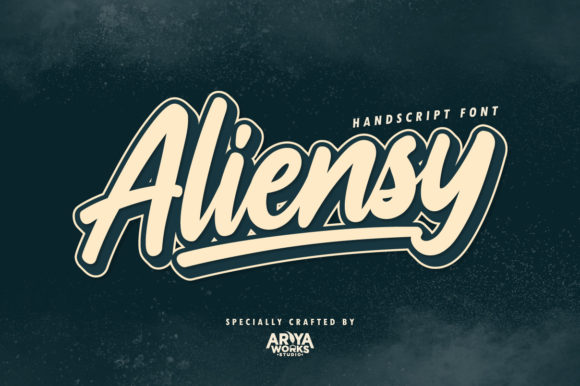
The Ultimate Guide to Aliensy Font: Elevate Your Designs with a Retro Twist
Aliensy Font: A Personal Review
- ✨ Retro charm: Aliensy Font has a unique, nostalgic vibe that’s perfect for adding a touch of vintage flair to your designs.
- ✅ Bold and confident: This font reads as strong and dynamic, making it ideal for headlines and logotype projects.
- 💥 Highly versatile: Aliensy Font can be used for a wide range of design projects, from logos and posters to social media graphics and more.
Of course, no font is perfect, and Aliensy Font has a few minor quirks to be aware of:
- 🤔 Limited use in body text: Due to its bold and decorative nature, Aliensy Font may not be the best choice for lengthy body text.
- ⚠️ Some letter spacing issues: You may need to adjust the letter spacing to get the perfect look, especially when using the font at smaller sizes.
The Story Behind Aliensy Font
Aliensy Font was designed by a team of creatives who wanted to create a font that captured the essence of retro charm. Inspired by vintage posters, logos, and advertisements, Aliensy Font is the perfect blend of bold, confident, and playful. While the designer’s story is shrouded in mystery, their passion for creating unique and functional fonts is evident in every detail of Aliensy Font.
| Font Name | Aliensy Font |
| Author | Ariya Works Studio |
| What type of projects is Aliensy Font best suited for? | Aliensy Font is perfect for headlines, logotype projects, posters, social media graphics, and any design project that requires a bold, eye-catching font. |
| Is Aliensy Font available in different weights or styles? | Currently, Aliensy Font is available in a single weight. However, the font features OpenType features, glyphs, and stylistic alternates to provide more versatility. |